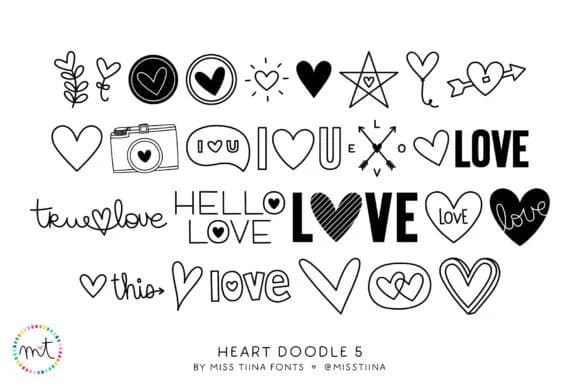
Heart Doodle 5, designed by Miss Tiina, features an enchanting collection of hand-drawn heart shapes and ornamental motifs rendered with a playful, doodled aesthetic. This dingbat font works best when you need symbols that feel personal and warm rather than polished or corporate. The heart designs range from simple, clean outlines to more elaborate versions, giving you genuine flexibility across different design contexts and project types.
Valentine's Day card designs thrive with this font's visual spirit, as do custom wedding invitations where a softer, more intimate tone suits the occasion. Handmade gift tags, scrapbooking layouts, and greeting card embellishments all benefit when you need heart motifs that look genuine rather than generic. Love-themed stationery sets and DIY craft projects become more distinctive with these symbols because they carry real handcrafted character that stock clip art simply cannot match.
The dingbat approach lets you pair Heart Doodle 5 with any serif or sans-serif typeface for your main text, keeping the hearts as visual accents that enhance without competing for attention. Designers and crafters who prioritize personality and authenticity in their work will find this collection particularly useful. Get Heart Doodle 5 on Creative Fabrica to add these heart symbols to your design toolkit.
Heart Doodle 5 Font is a versatile dingbats font that works for both headings and body text. Pair it with a contrasting sans-serif or serif font to add visual interest and a clear distinction between titles and body copy.